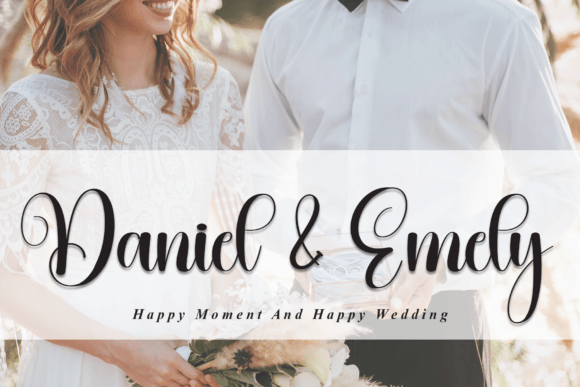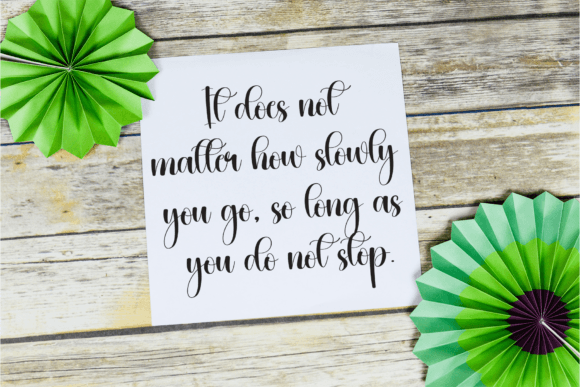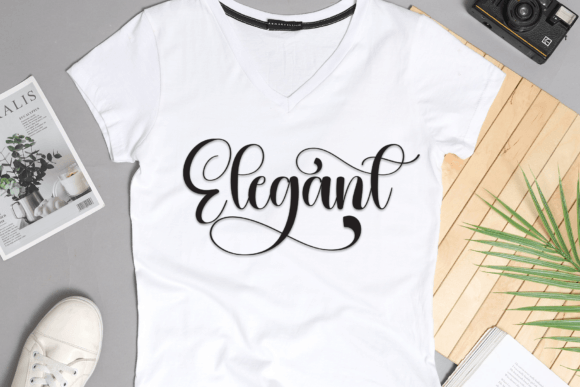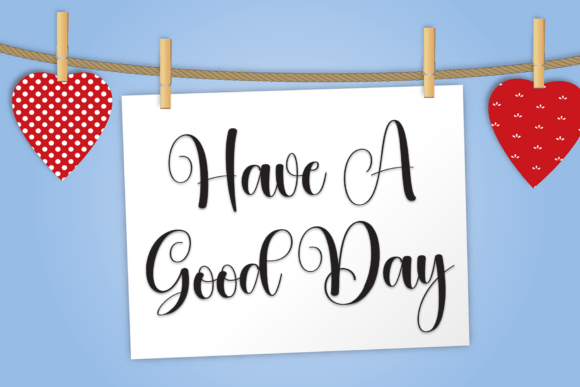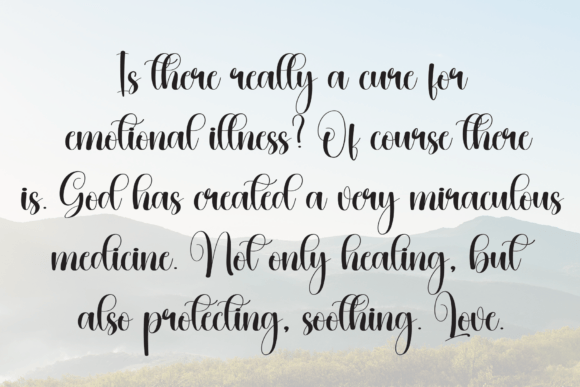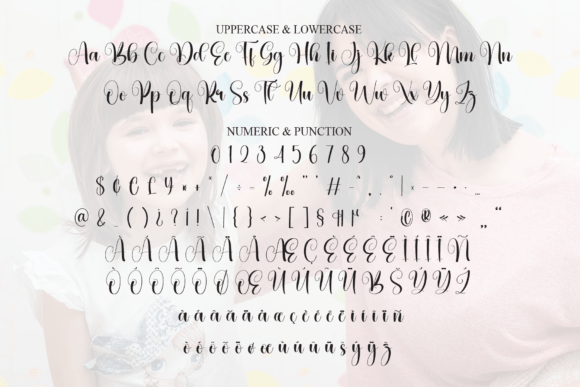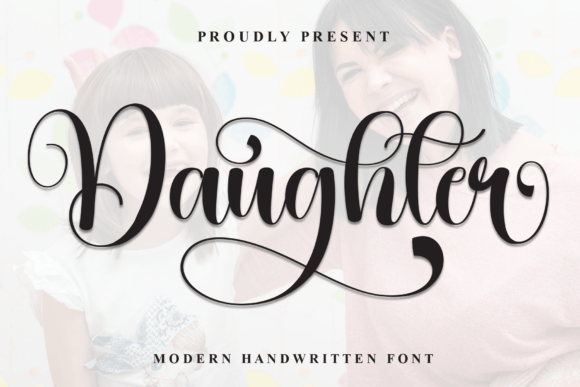
Discover the Charm of Daughter Font: A Handwritten Typeface for Personal Projects
In the world of typography, there’s something special about a font that captures the warmth and personality of handwritten text. Daughter Font is one such charming and casual typeface that looks like it was written by hand. With its uneven letters and natural flow, this font gives off a cozy and friendly vibe that’s perfect for personal projects, invitations, and anything that needs a handmade touch.
The Characteristics of Daughter Font
Daughter Font boasts a unique set of characteristics that set it apart from other typefaces. Its handwritten style features:
- Uneven letters: Each letter has a subtle irregularity, giving the font a sense of human touch and imperfection.
- Natural flow: The letters seem to flow smoothly into one another, creating a sense of movement and fluidity.
- Warm and friendly feel: The overall aesthetic of Daughter Font is inviting and approachable, making it perfect for projects that require a personal touch.
Perfect for Personal Projects and Invitations
Daughter Font is ideal for designers and crafters looking to add a personal touch to their projects. Whether you’re creating:
- Personal invitations: Birthdays, weddings, baby showers, or any other special occasion.
- DIY crafts: Handmade cards, gift tags, or scrapbooking projects.
- Branding materials: Logos, business cards, or social media graphics for small businesses or personal ventures.
Daughter Font’s charming and casual style will add a touch of warmth and personality to your creations.
Why Choose Daughter Font?
With so many typefaces available, why choose Daughter Font? Here are a few reasons:
- Uniqueness: Daughter Font’s handwritten style sets it apart from more traditional typefaces.
- Versatility: This font can be used for a wide range of projects, from personal to commercial.
- Ease of use: Daughter Font is easy to read and works well in various sizes and formats.
Tips for Using Daughter Font Effectively
To get the most out of Daughter Font, consider the following tips:
- Pair with complementary fonts: Combine Daughter Font with other fonts to create visual interest and hierarchy.
- Experiment with colors: Try different colors and textures to enhance the font’s handmade feel.
- Use for headlines and body text: Daughter Font works well for both headlines and body text, making it a versatile choice for various projects.
Daughter Font is a charming and versatile typeface that’s perfect for designers and crafters looking to add a personal touch to their projects. With its unique characteristics, warm and friendly feel, and ease of use, this font is sure to become a favorite in your typography collection. So why not give Daughter Font a try and see how it can elevate your designs?
- Daughter Font is a handwritten typeface with uneven letters and a natural flow.
- Perfect for personal projects, invitations, and DIY crafts.
- Unique, versatile, and easy to use.
- Tips for using Daughter Font effectively: pair with complementary fonts, experiment with colors, and use for headlines and body text.